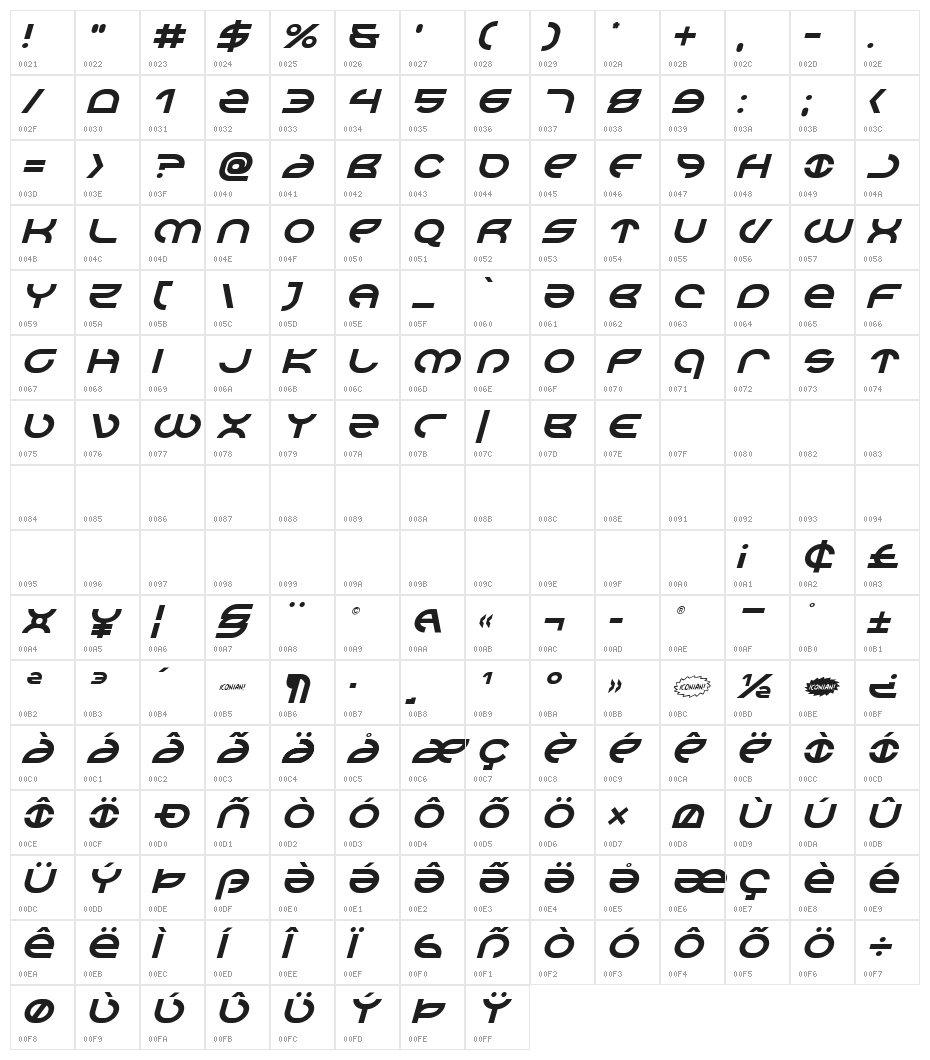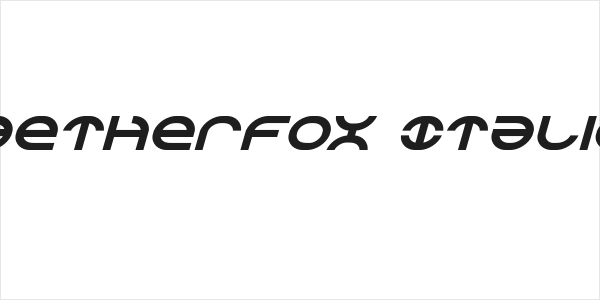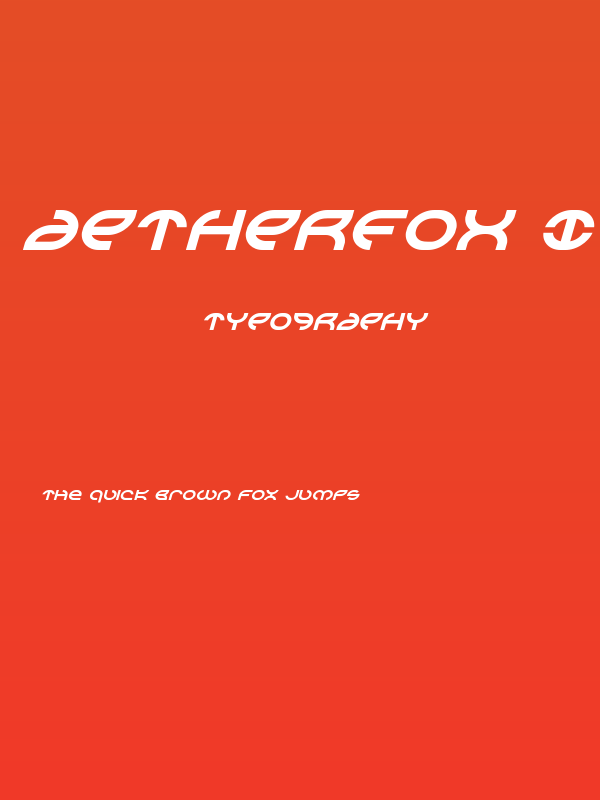
Aetherfox Italic Font
Aetherfox Italic Description
This font features a sleek, futuristic design with a distinct italic slant, giving it a dynamic and forward-moving appearance. The characters are crafted with smooth curves and sharp edges, creating a sense of motion and energy. The uppercase and lowercase letters maintain a consistent style, with some characters exhibiting unique, stylized elements that enhance the modern aesthetic. The numerals and special characters are equally well-designed, fitting seamlessly with the overall look. This font's boldness and unique style make it stand out, suitable for projects that require a contemporary and innovative touch.